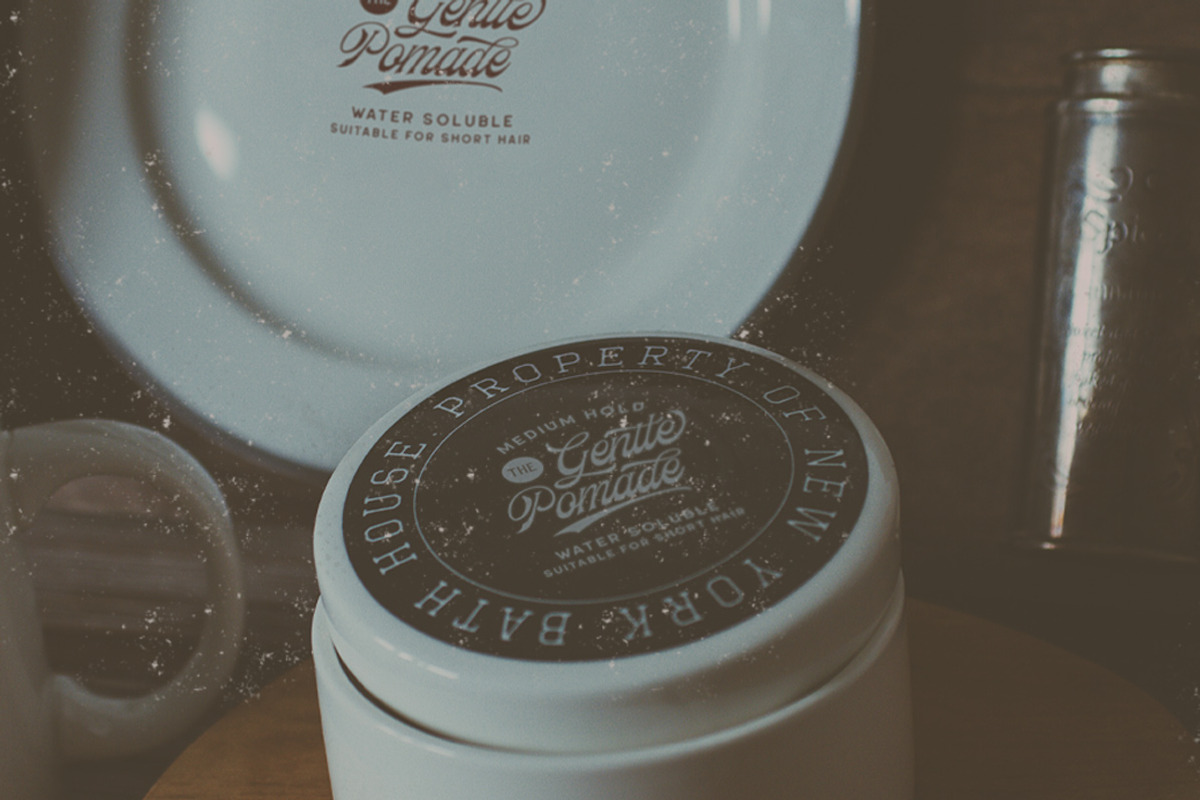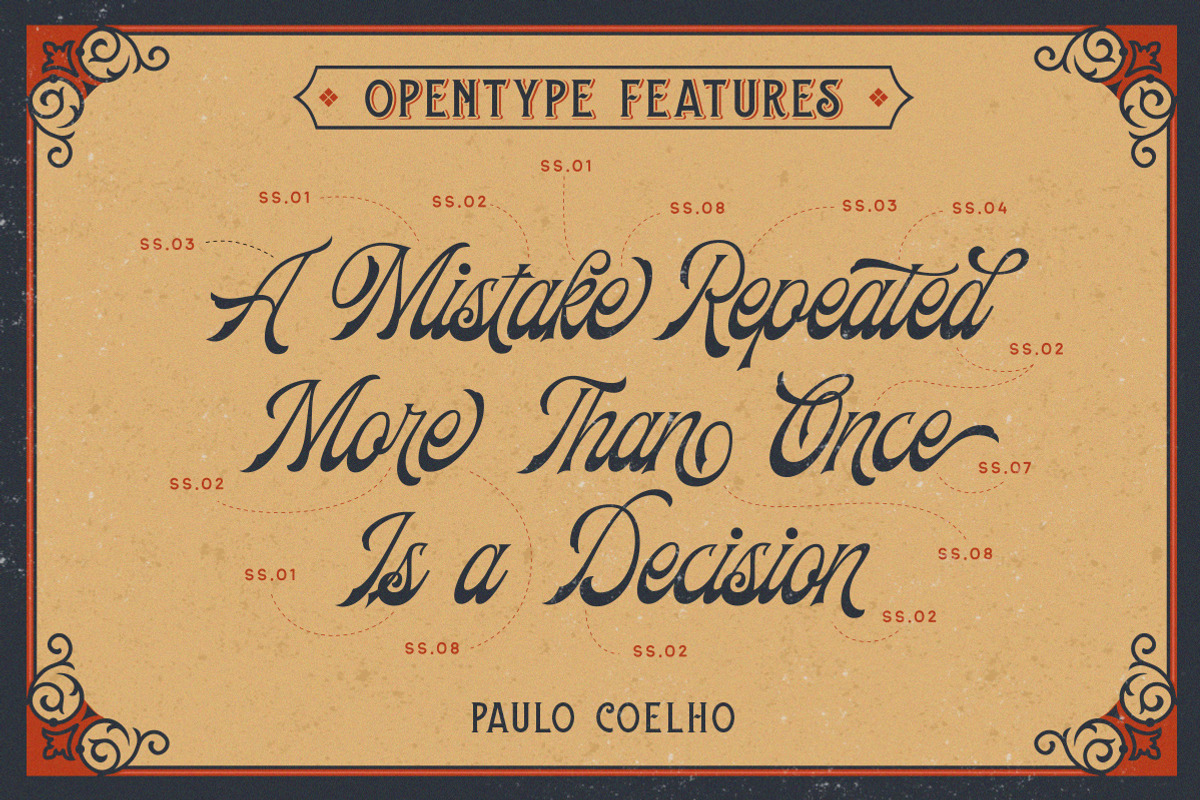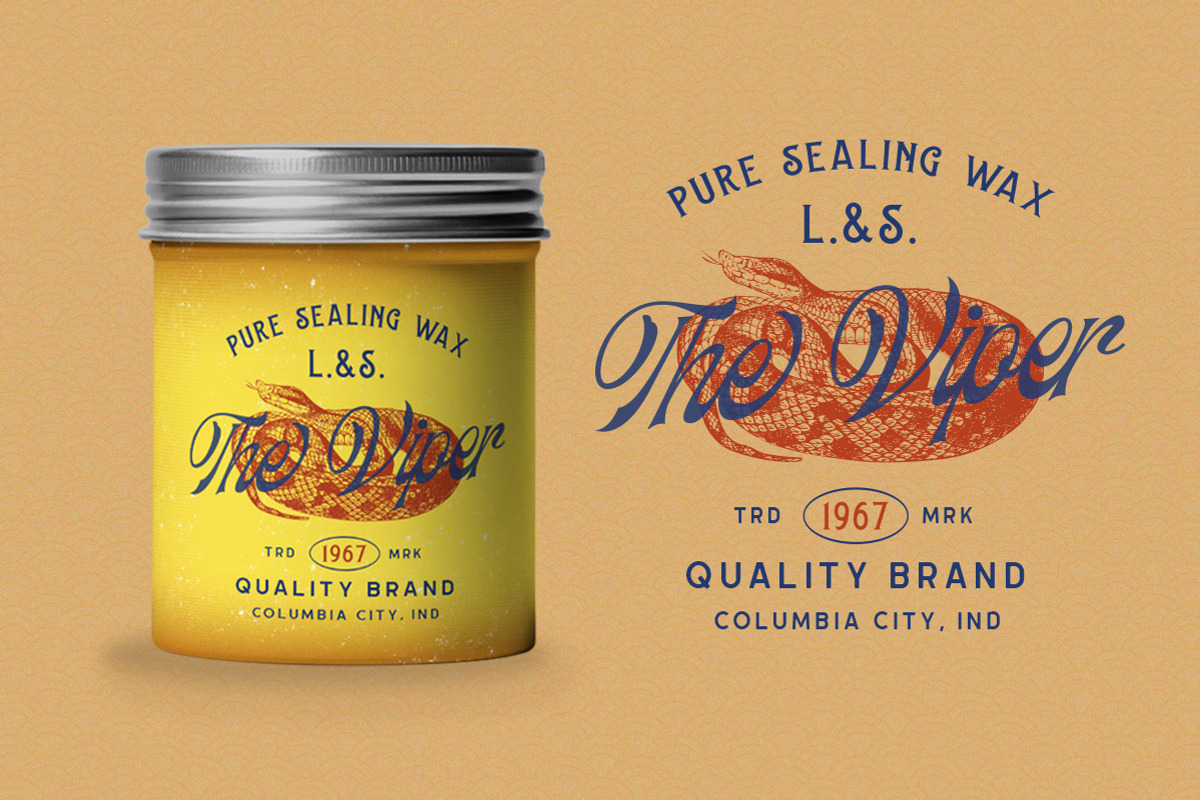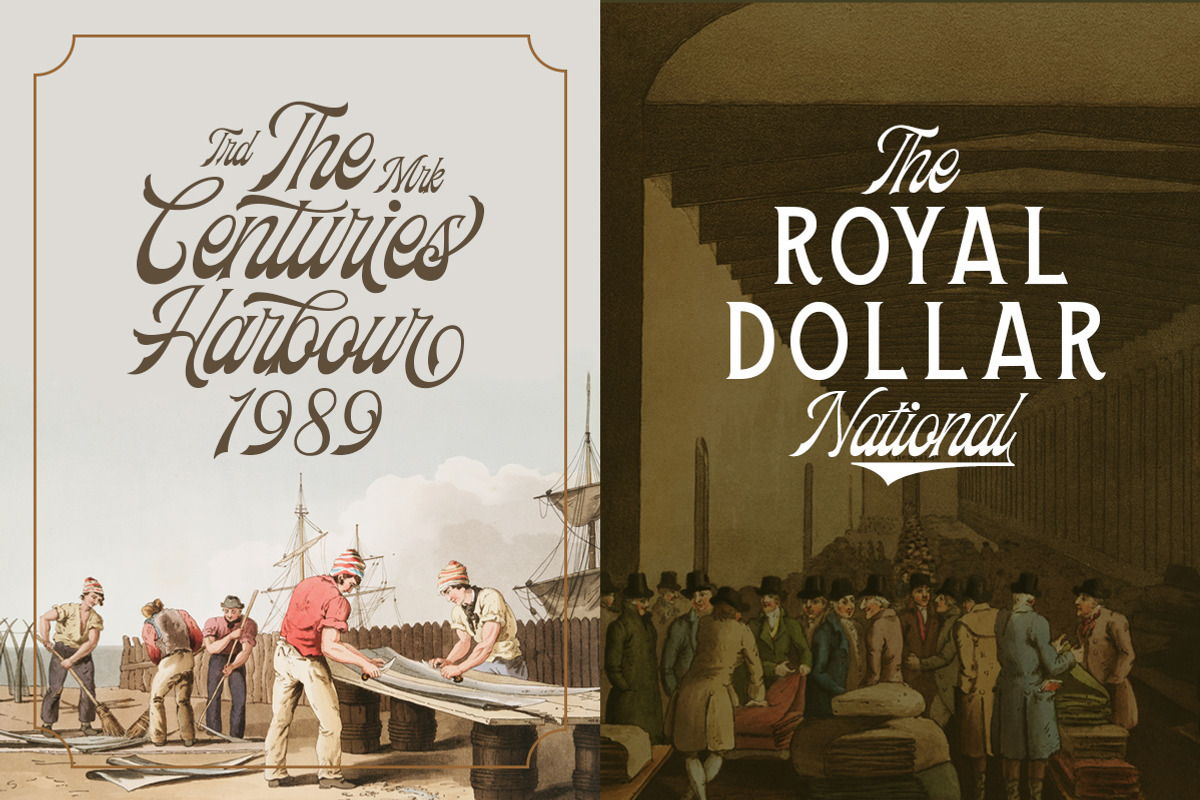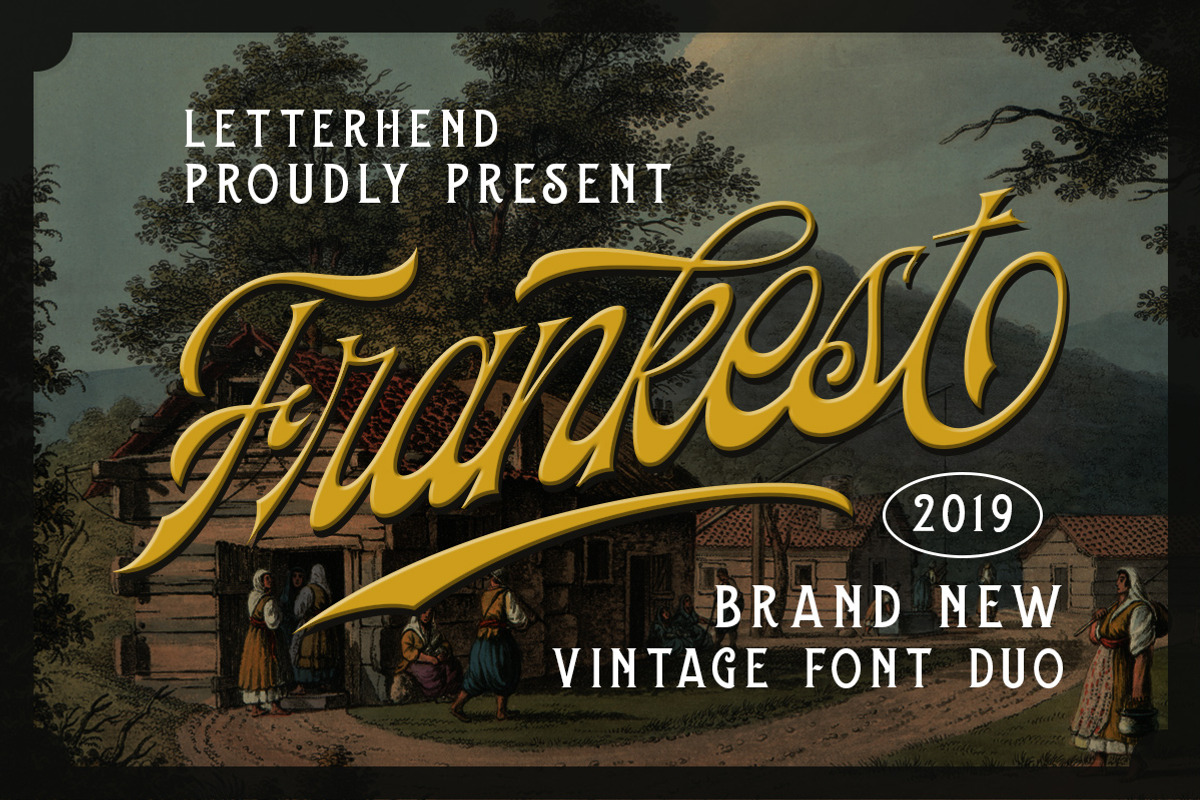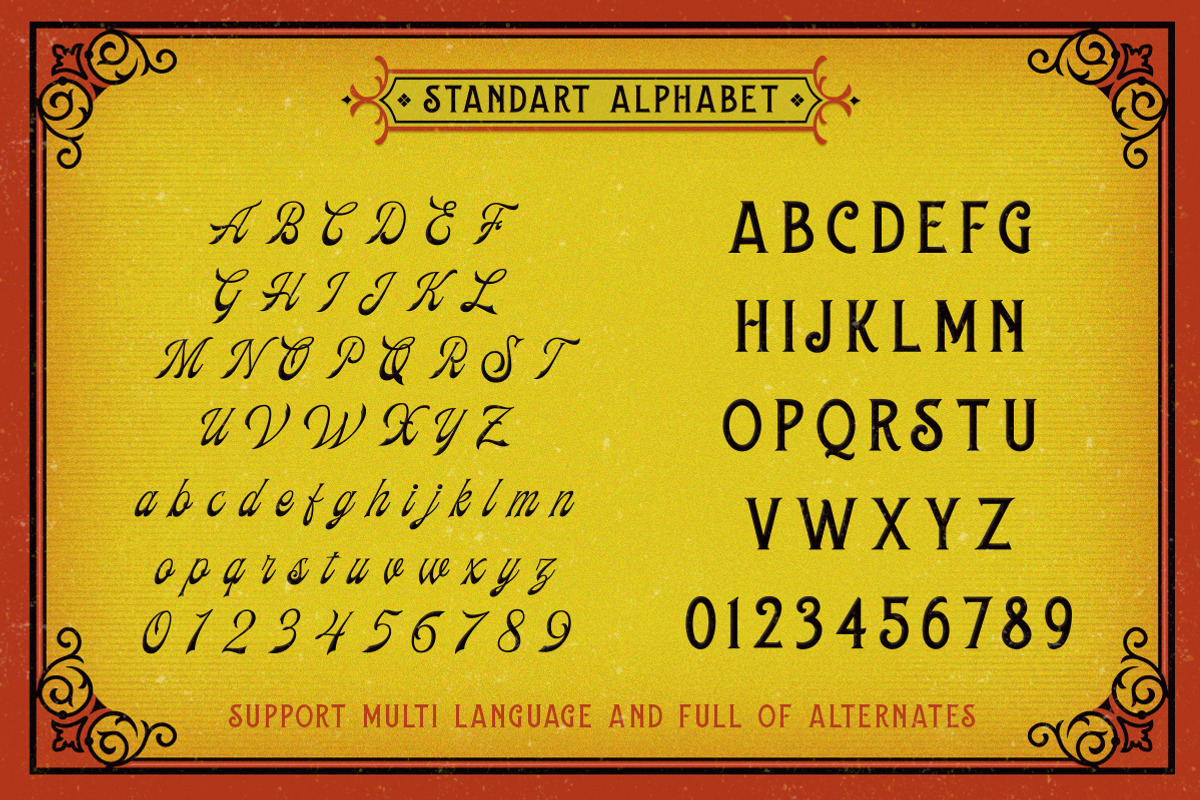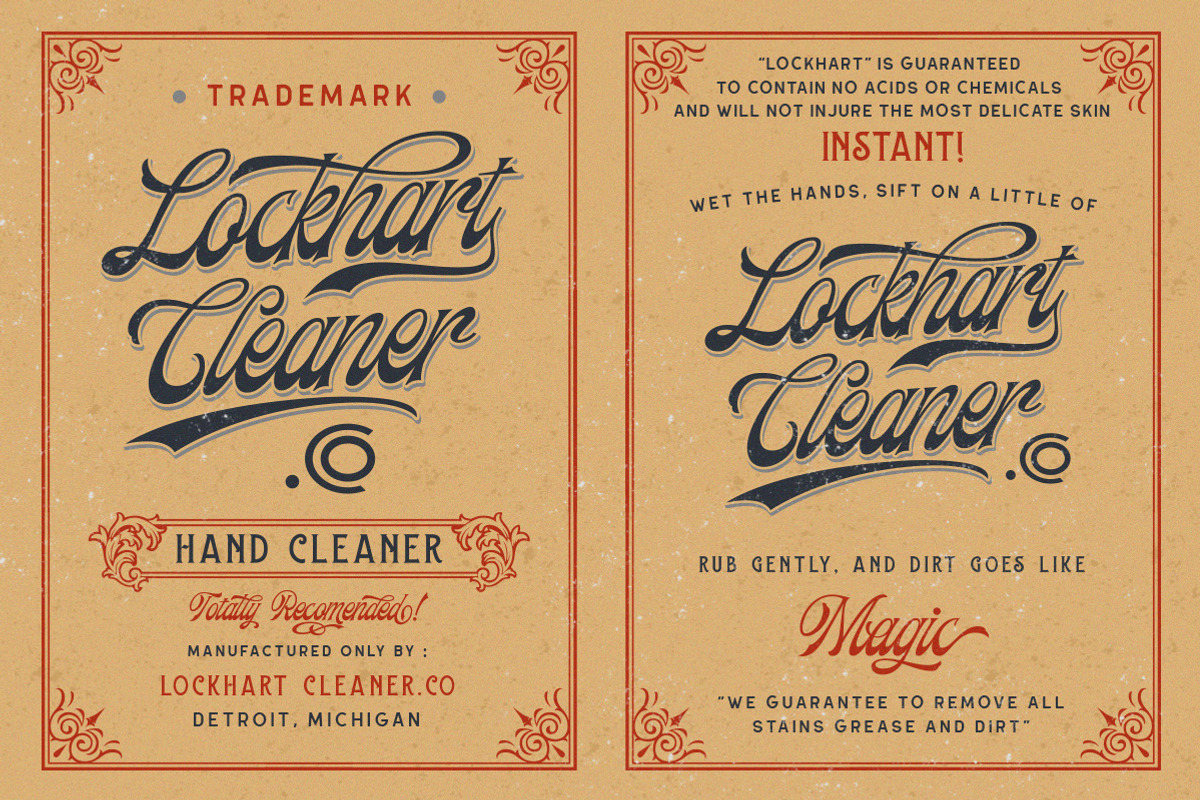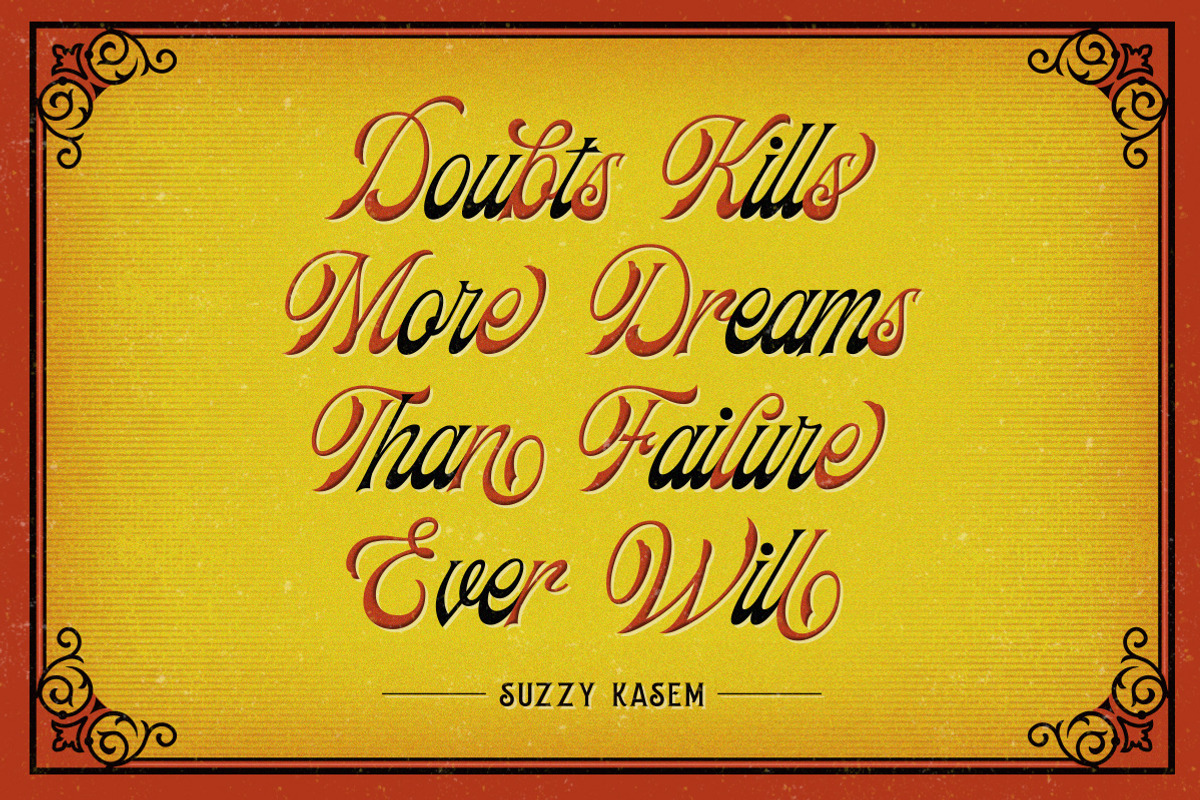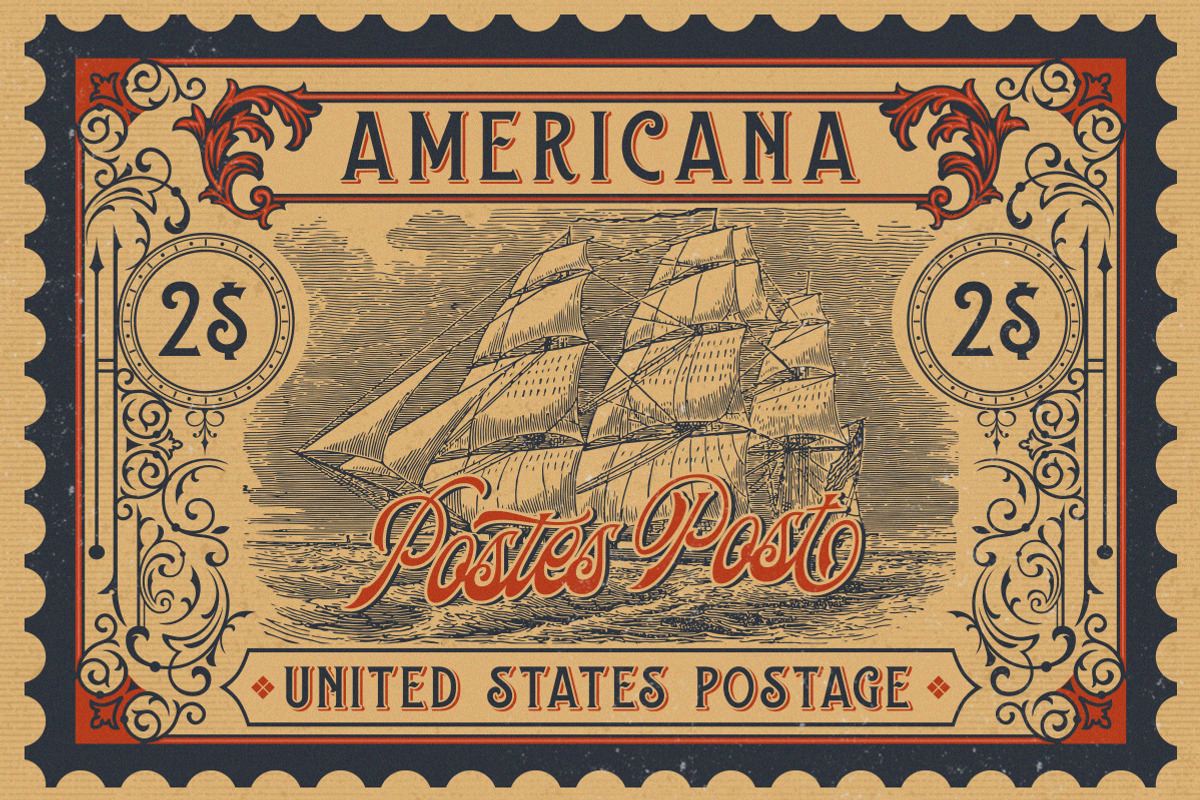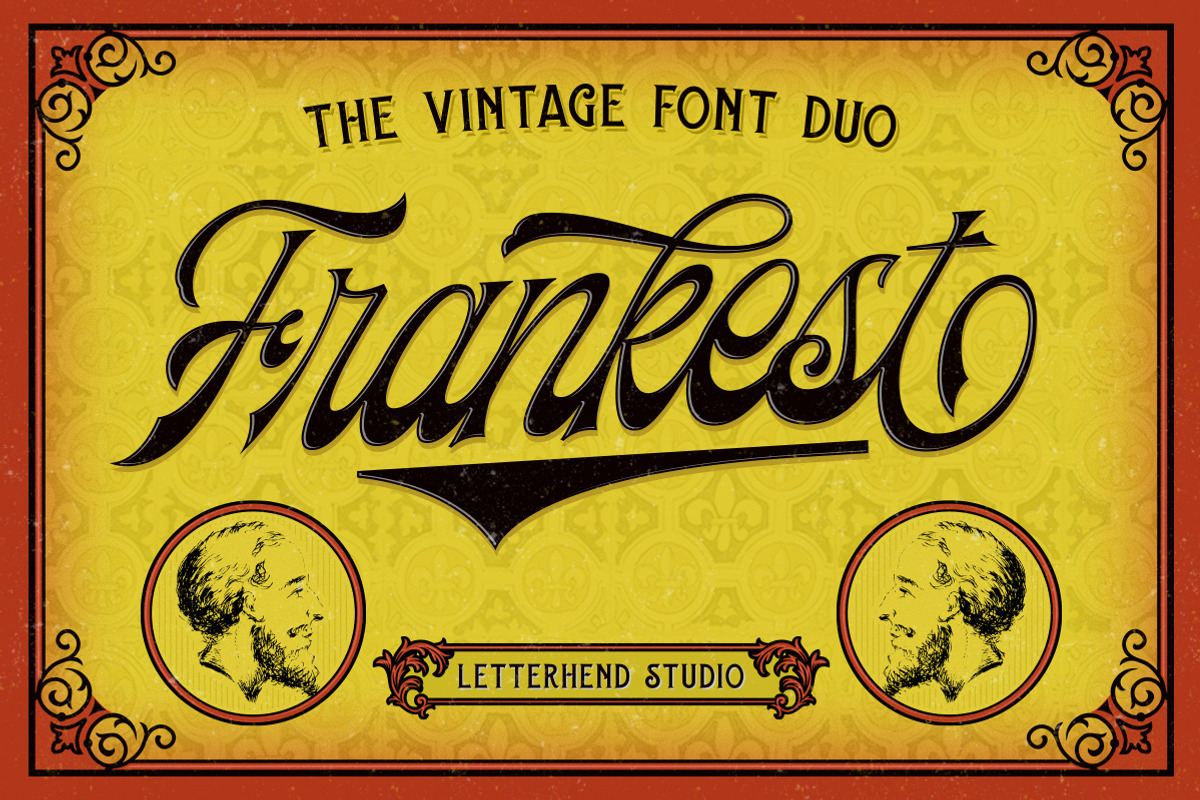
Frankest - The Vintage Font Duo
Introducing, our latest vintage font duo called Frankest. Perfect for logotype, headline, apparel, poster with vintage feels.
- Ligatures, stylistic alternate, etc